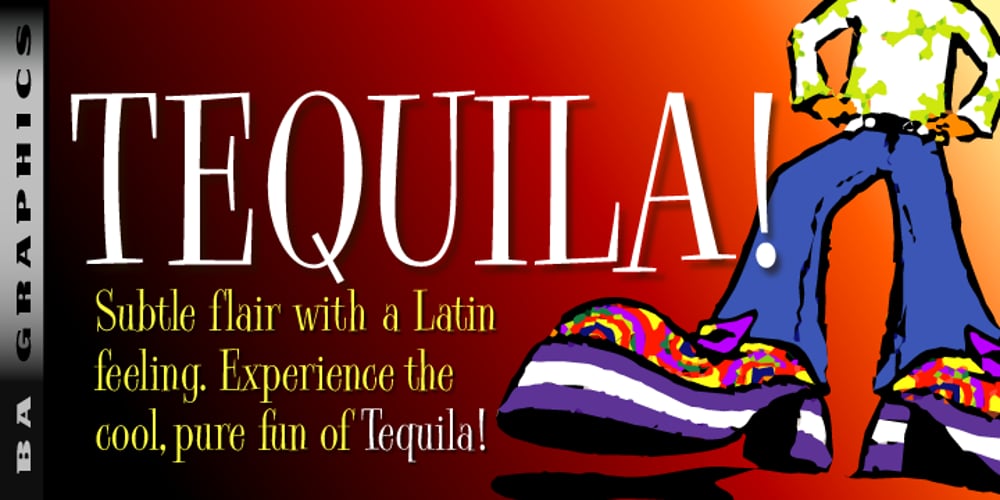
Tequila
Tequila font
Tequila Font Family was designed by Bob Alonso and published by BA Graphics. Tequila contains 1 styles and family package options. A revival from the past this animated letter will fit right into todays market. With its subtle flair and Latin feeling it will surely give a feeling of pure fun. This style was very popular in the 40s and 50s then it was reborn in the 60s and 70s once again it is coming back and becoming popular again.